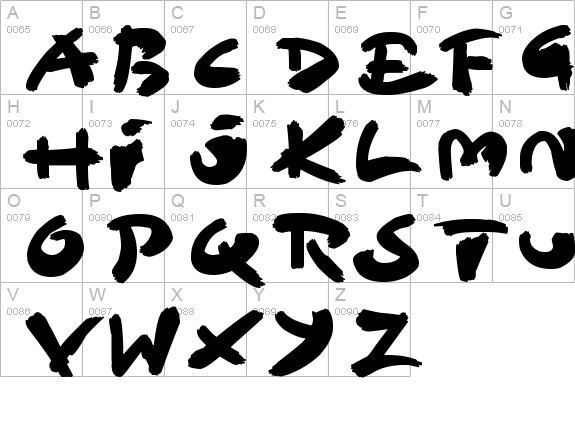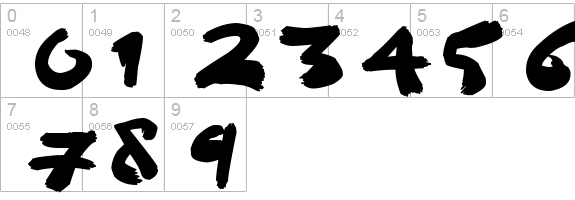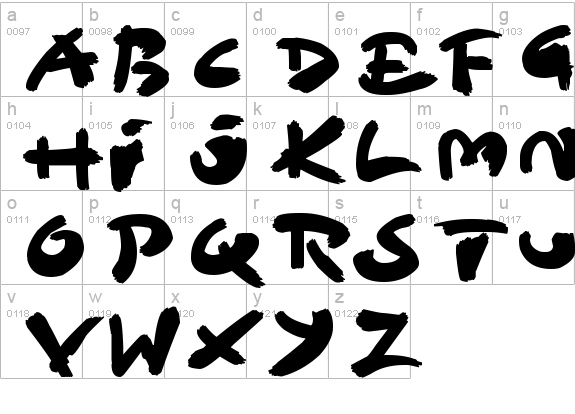
Sloppy Paint is a free for personal use font in the Script > Brush category, designed by Darrell Flood. It has been downloaded 68 times and is available for Windows, Mac and Linux.
Sloppy Paint font is a whimsical and playful typeface that captures the essence of carefree creativity. Its irregular strokes and uneven edges give off a charmingly messy appearance, perfect for adding a unique touch to your design projects. This free font exudes a sense of spontaneity and artistic flair, making it ideal for projects that call for a fun and casual vibe. Whether you're working on posters, invitations, or social media graphics, Sloppy Paint font will infuse your work with a sense of whimsy and originality. Download this delightful font for free at FontsMarket.com and unleash your creativity with its quirky charm.